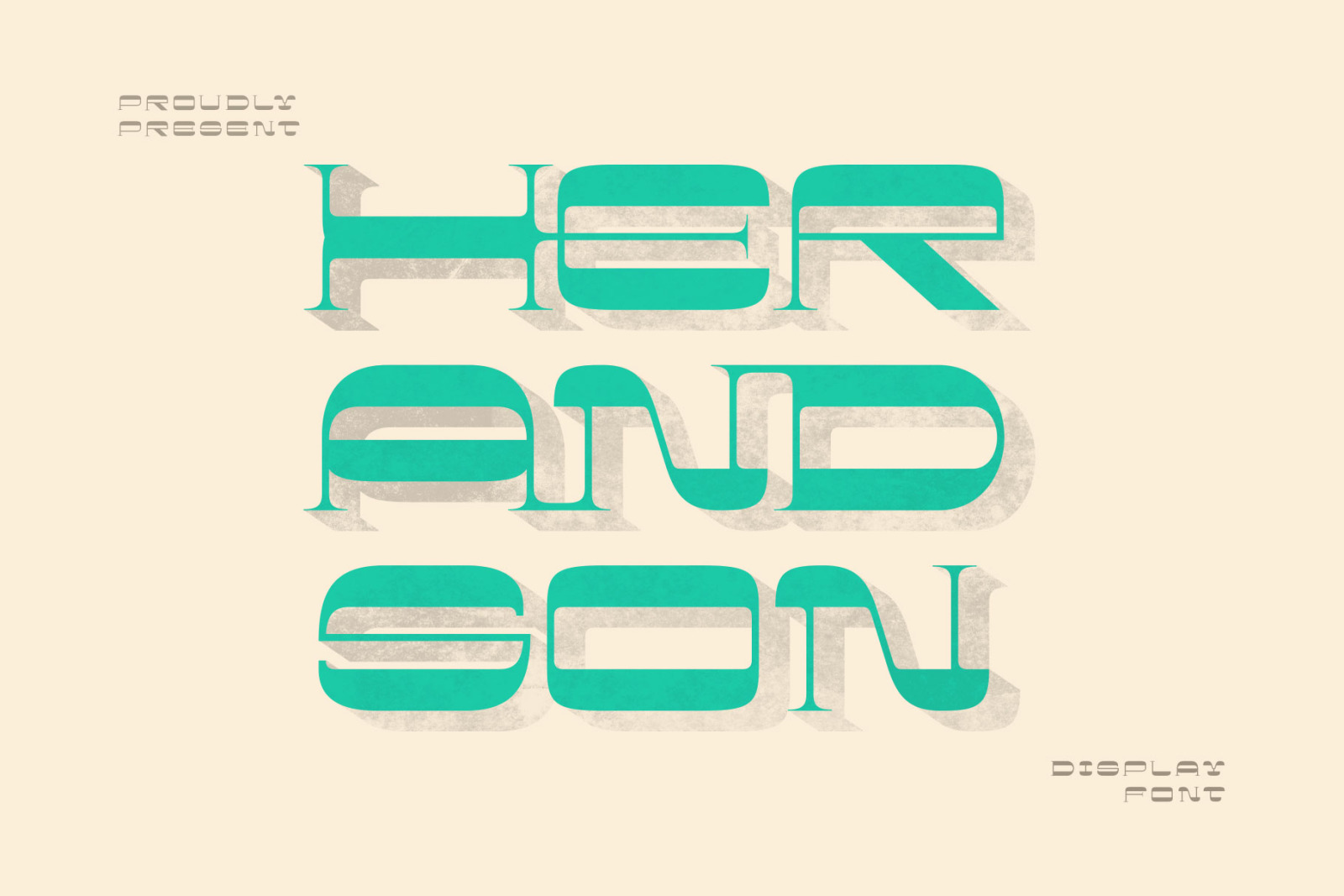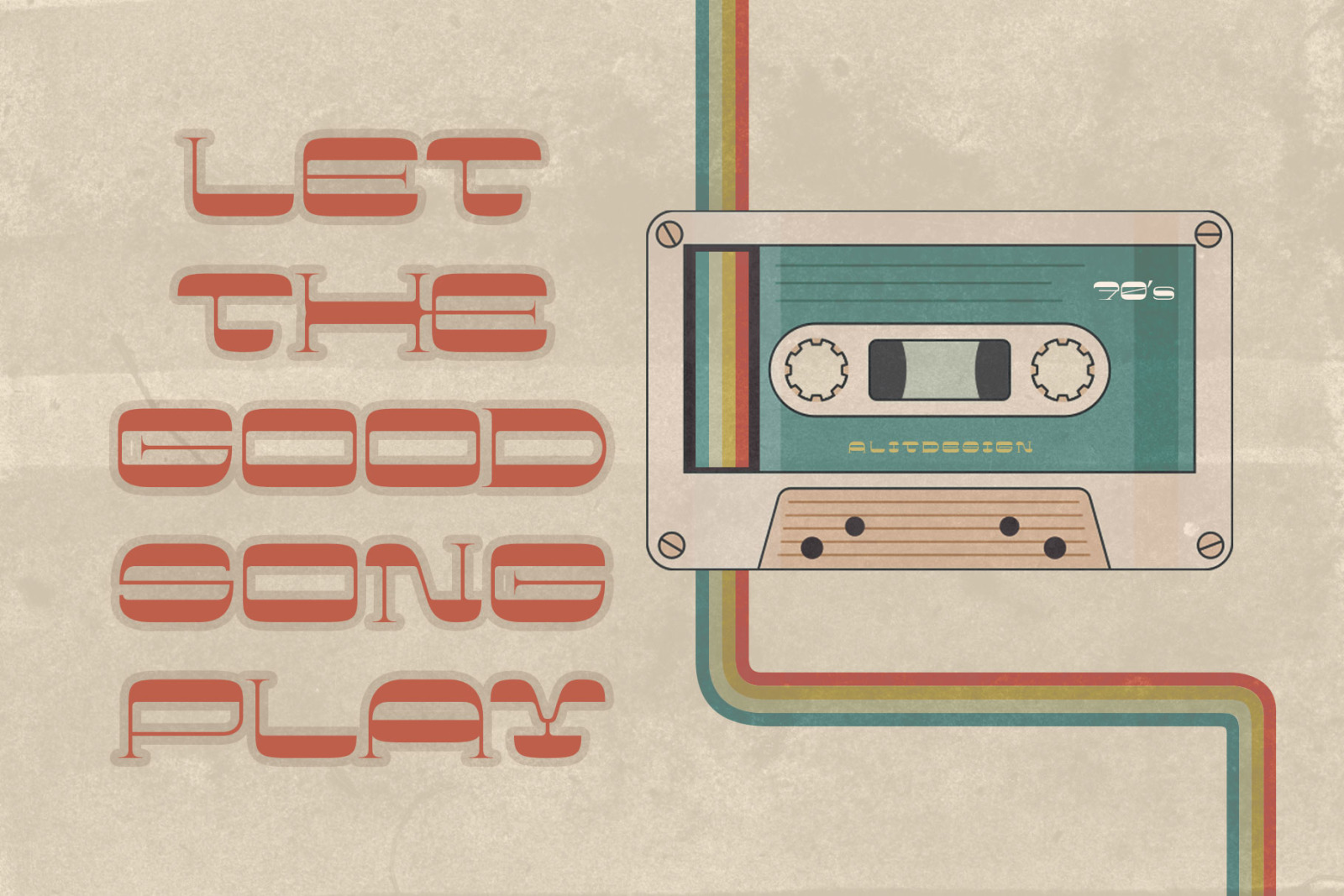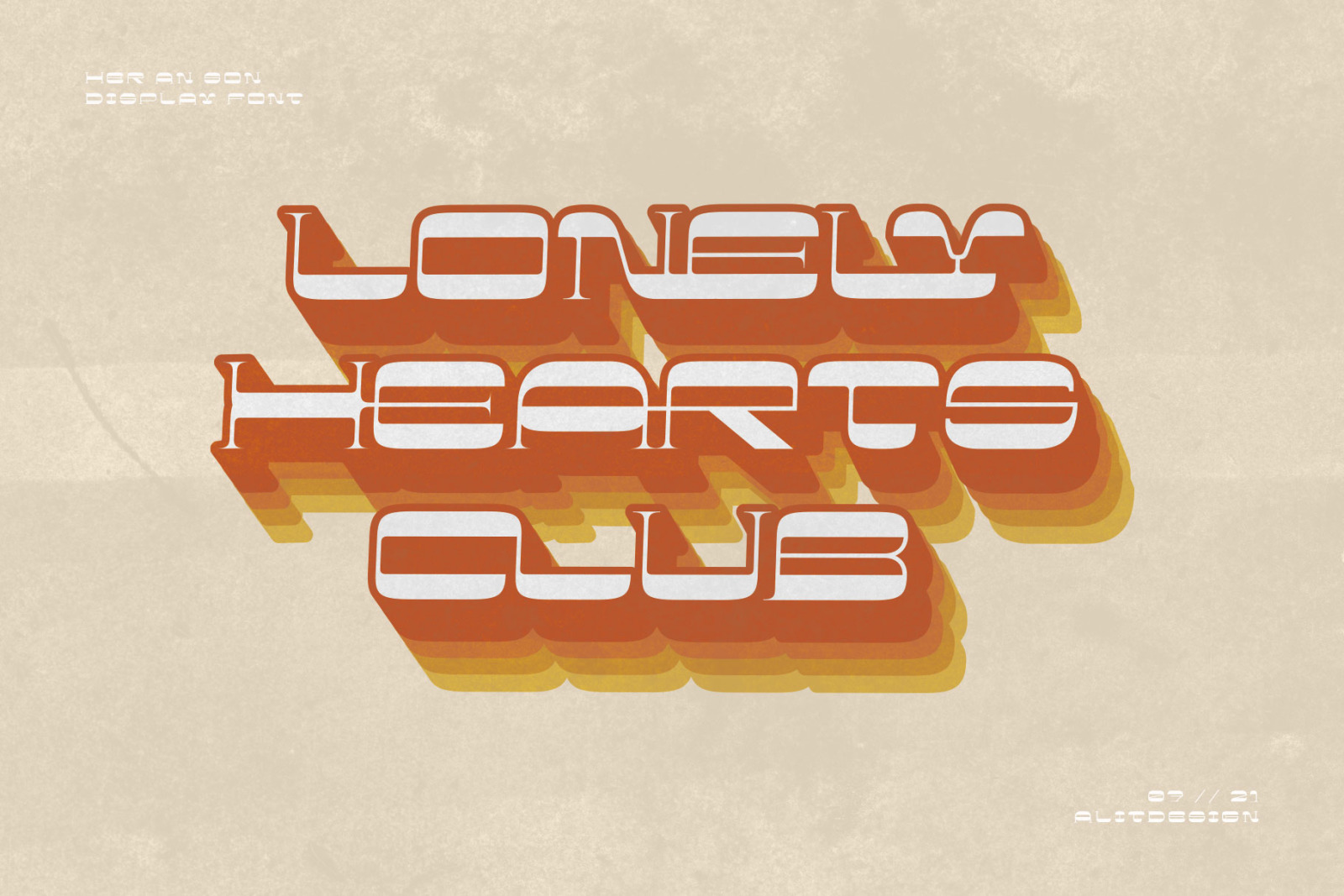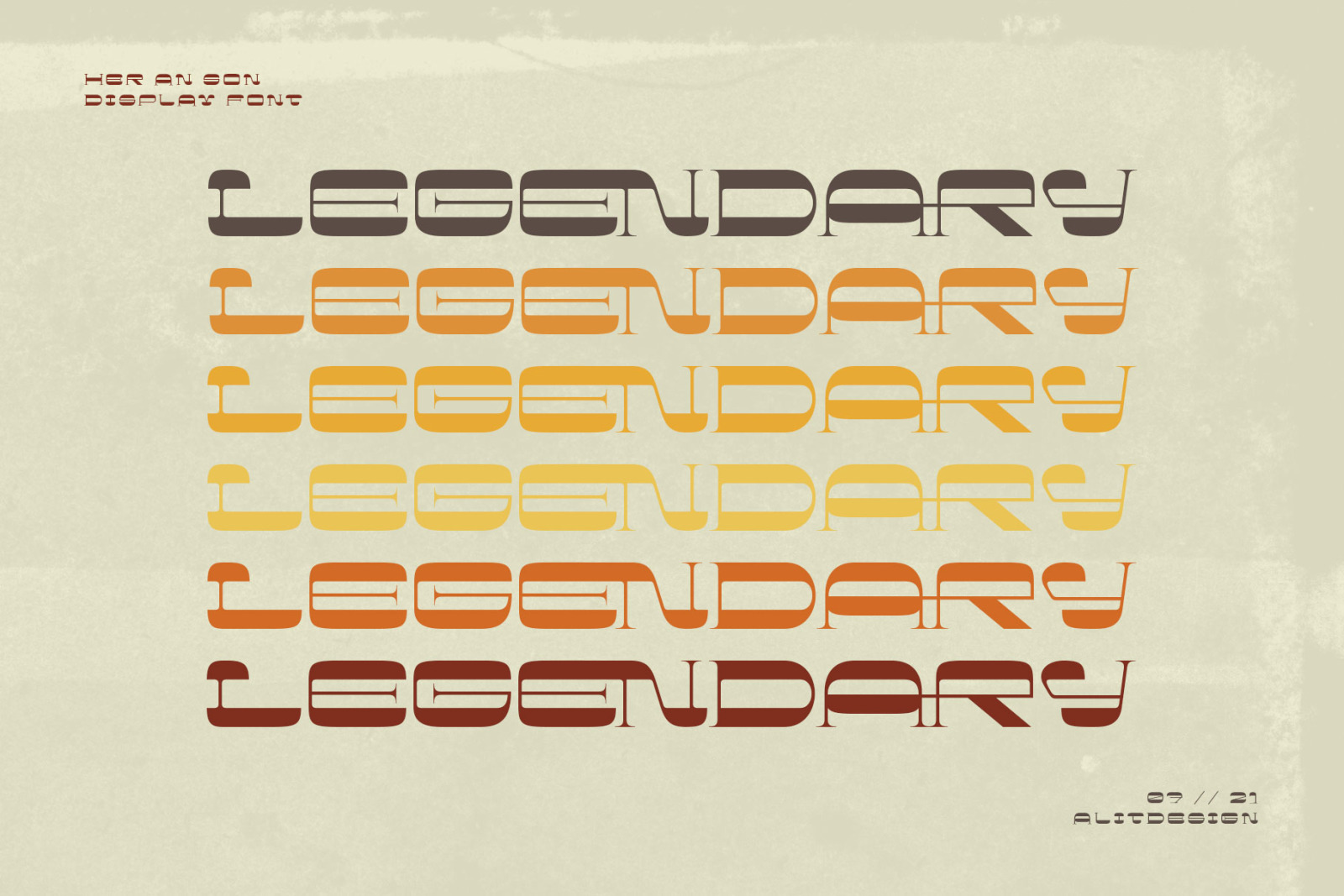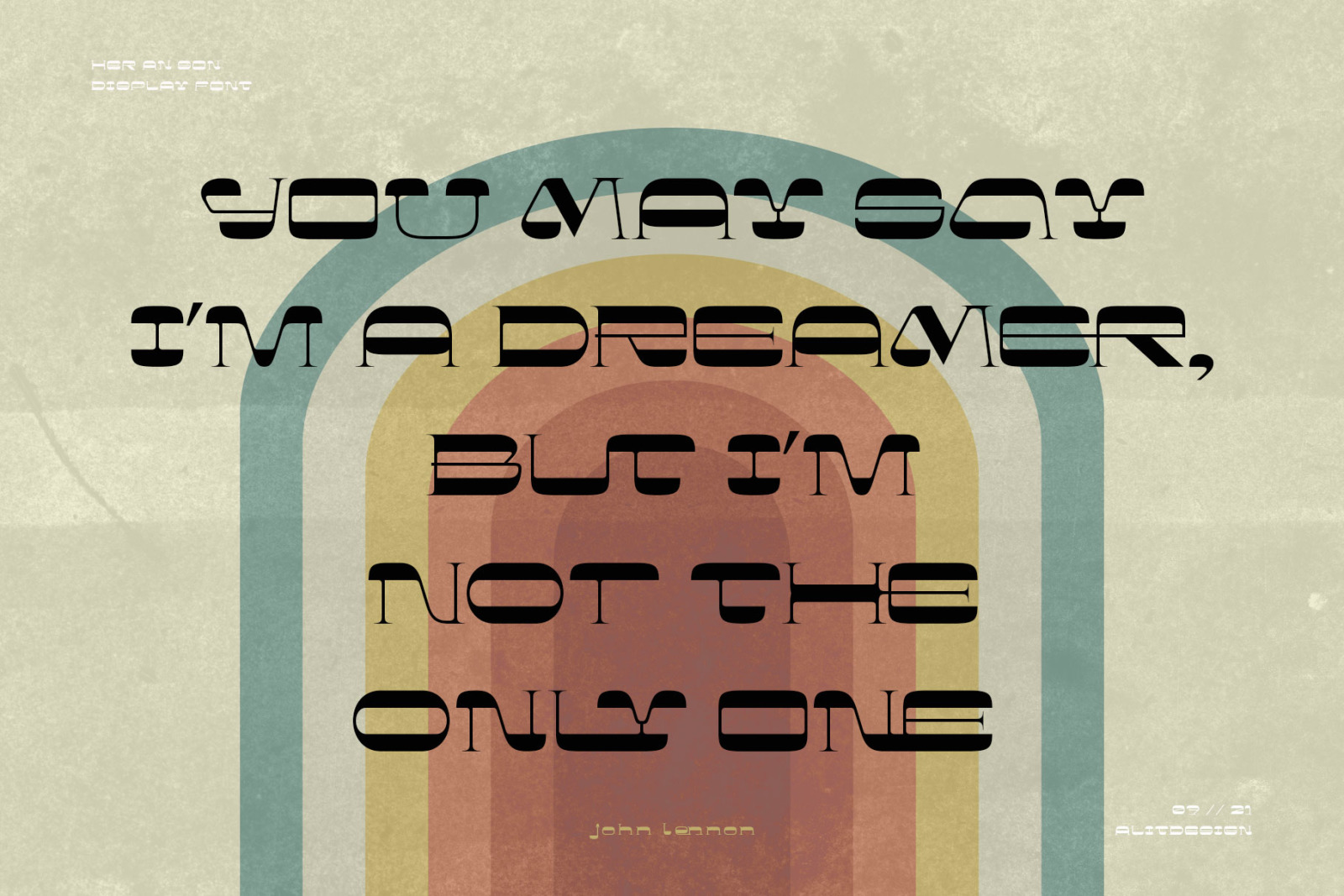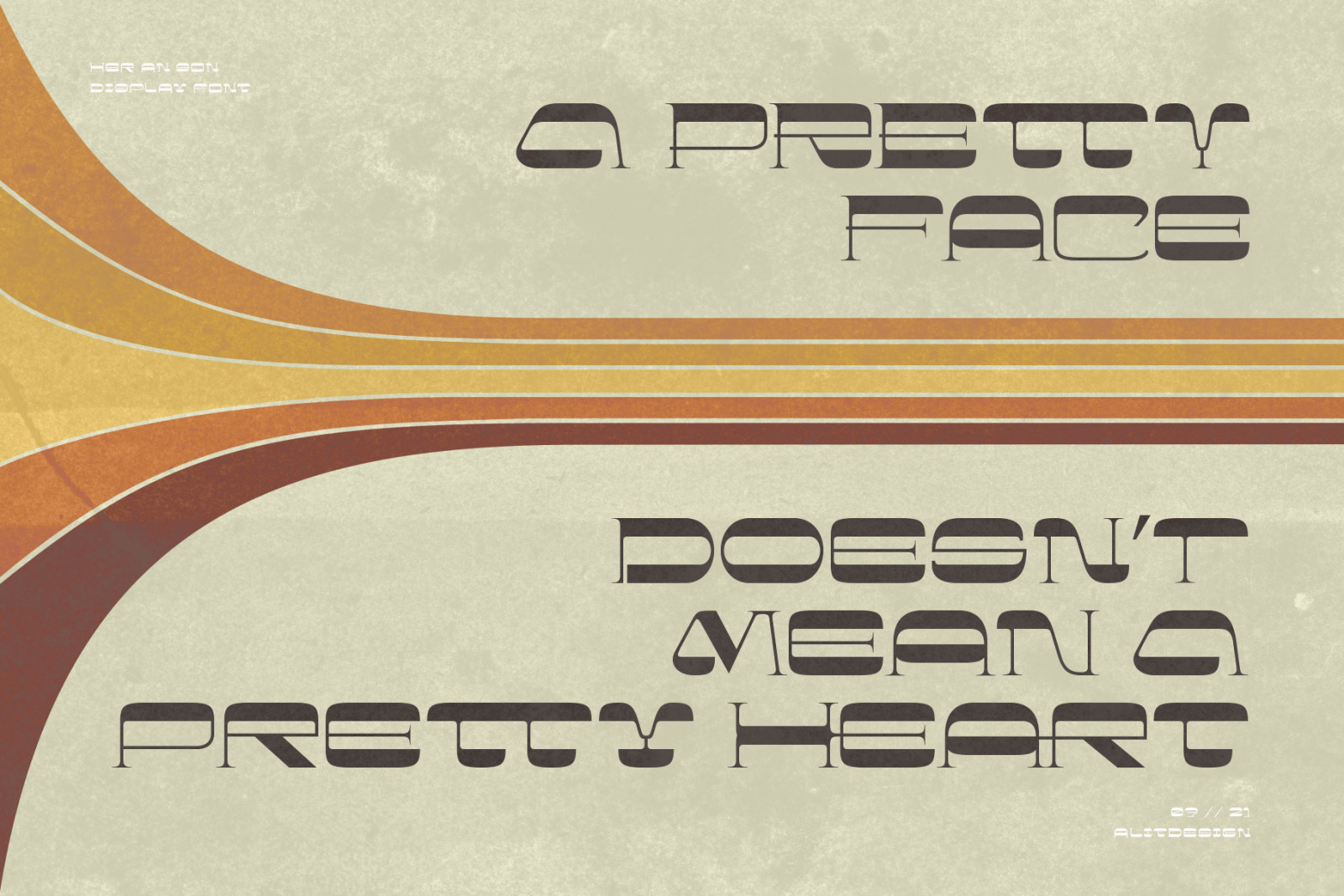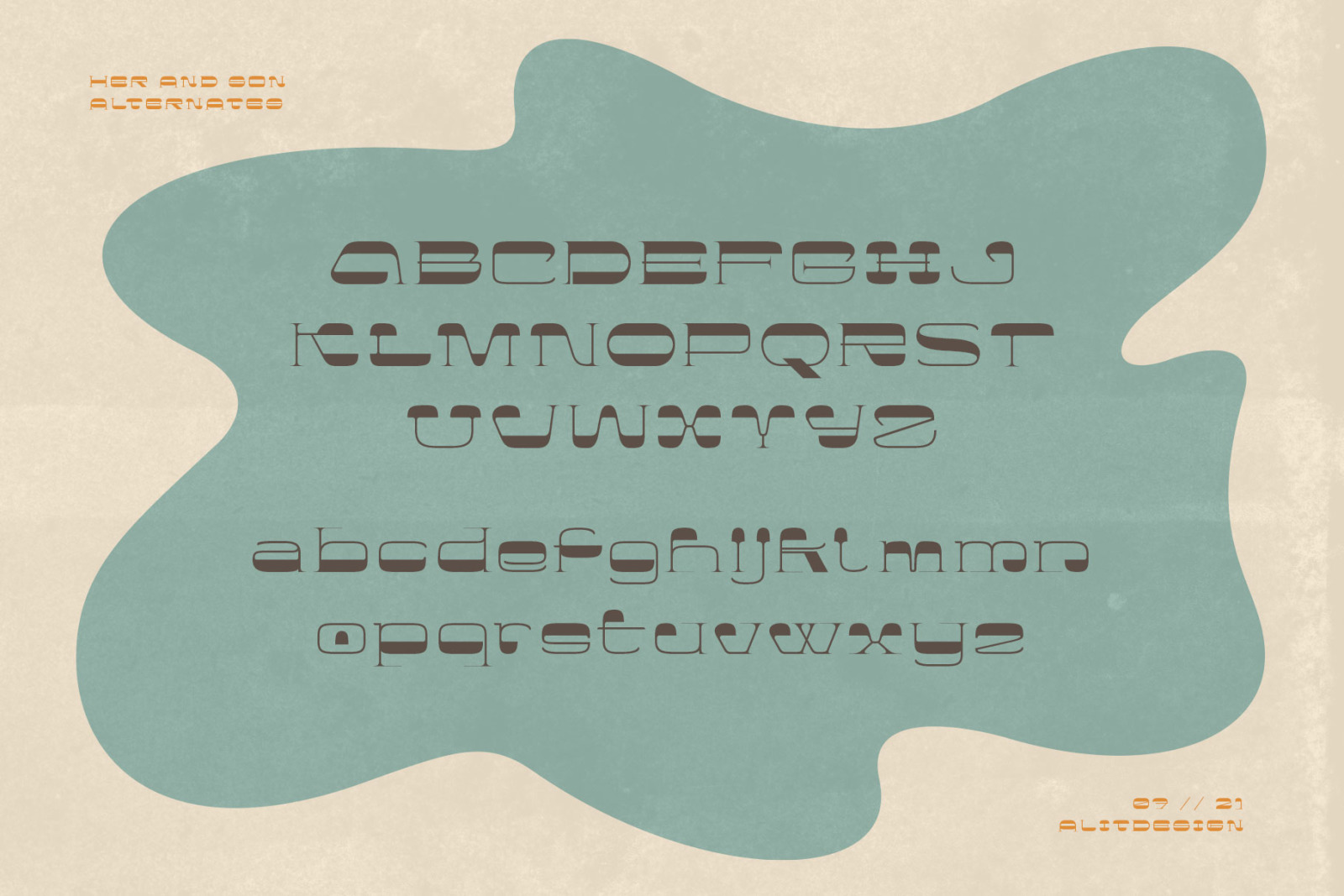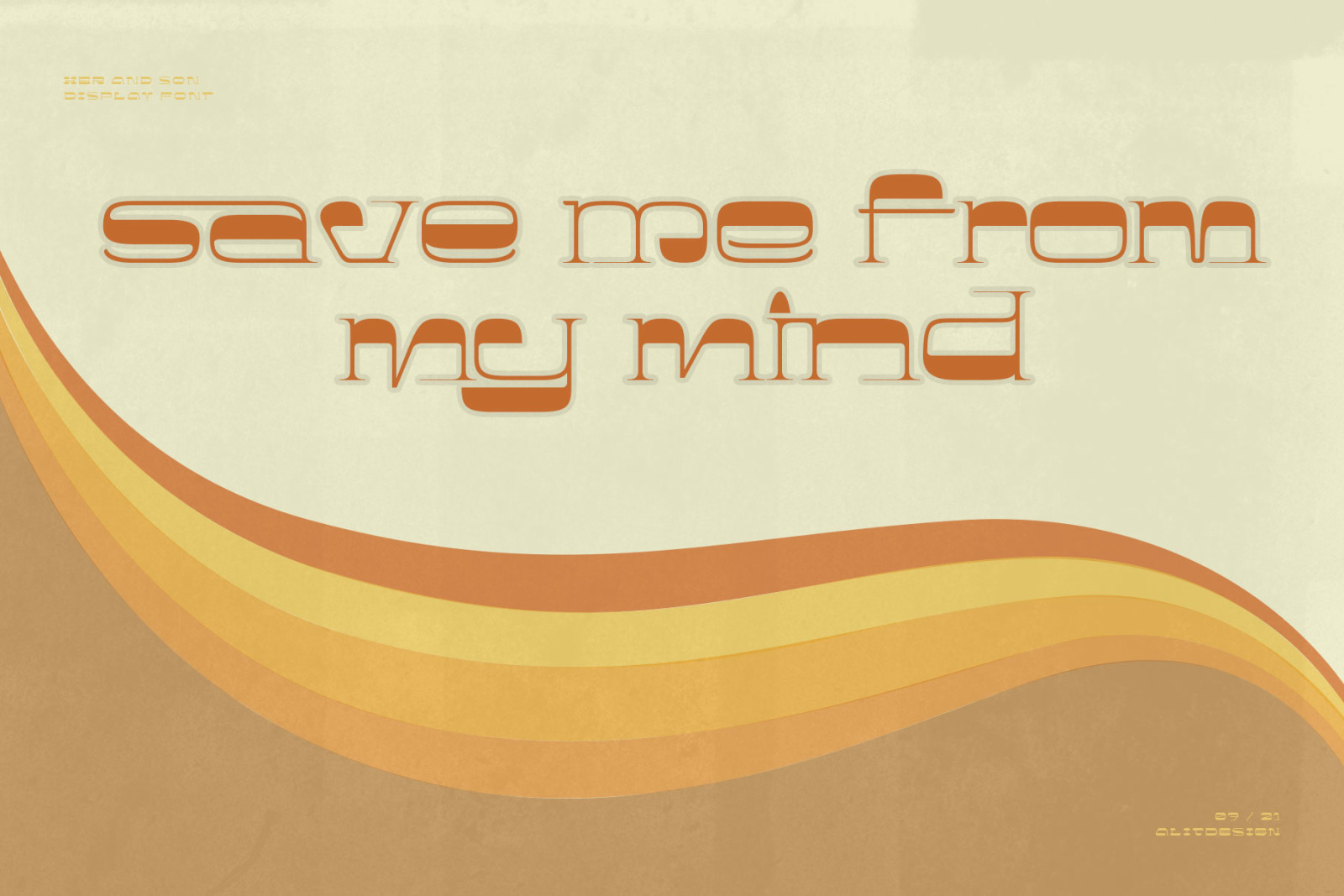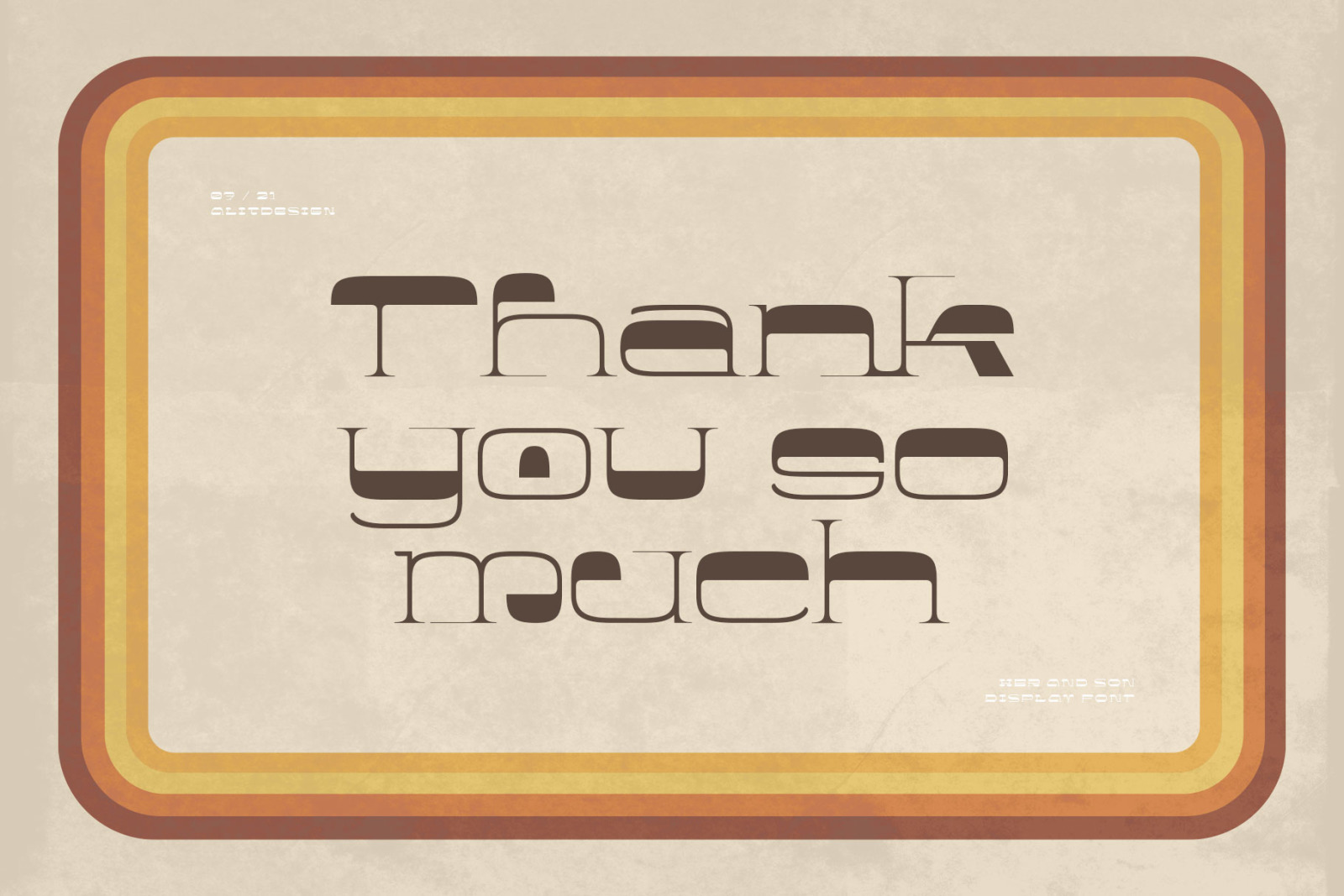
Her and Son Font
Introducing Her and Son Typeface. This font is inspired by the design styles of the 70s. The style is retro, groovy, classic, not serious but has aesthetic and unique value, besides that the “Her and Son” font is very easy to remember and becomes the image of a design.
Her and Son Typeface is very good for being your font collection because this font is very unique and easy to apply to any media that has a design concept that is not so serious, groovy, classic, retro and unique.